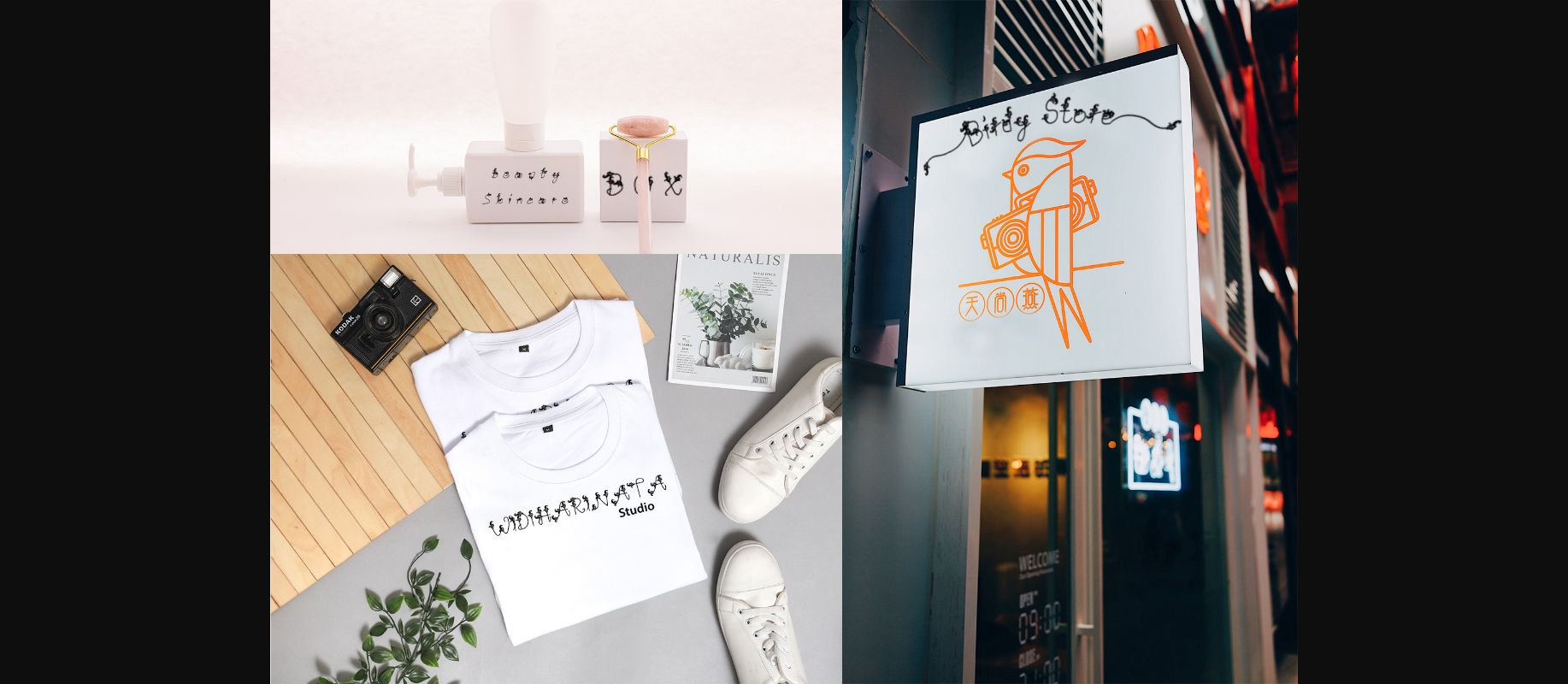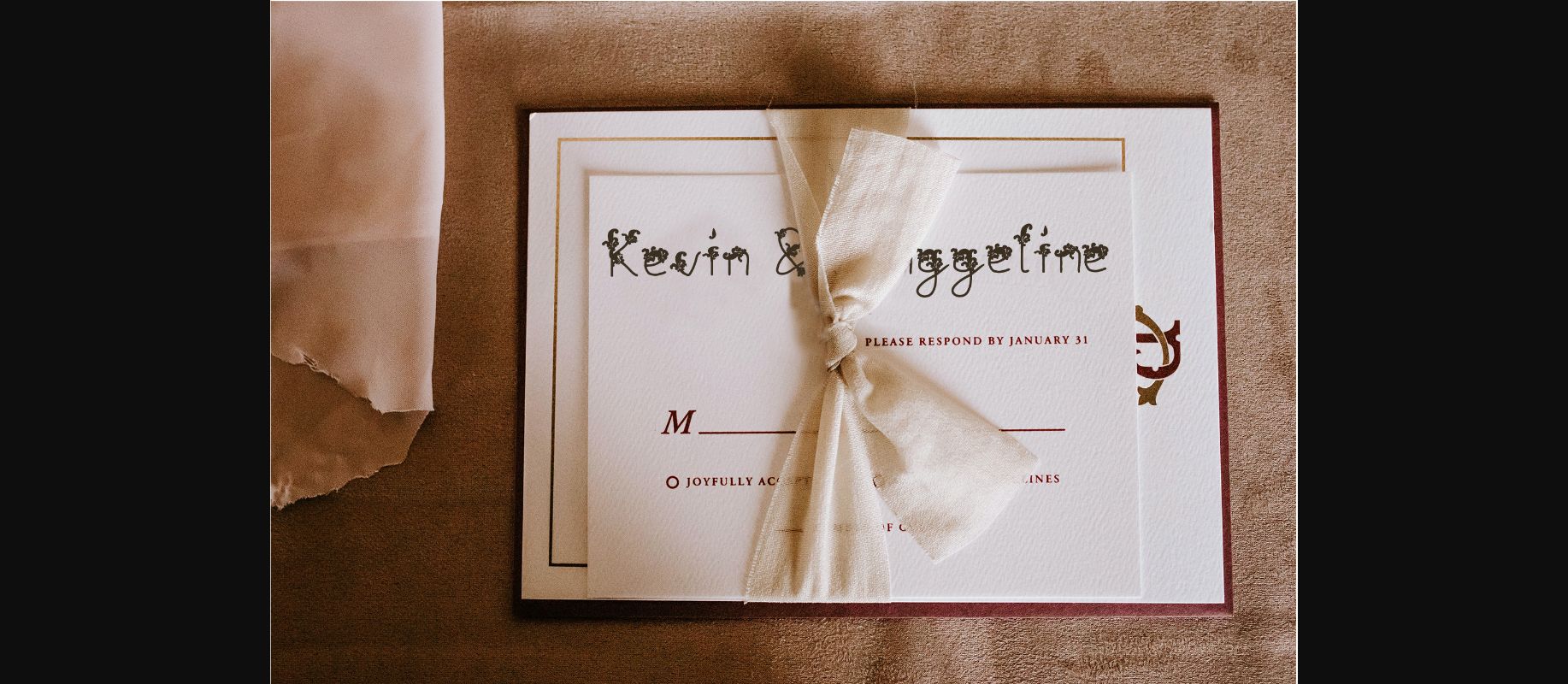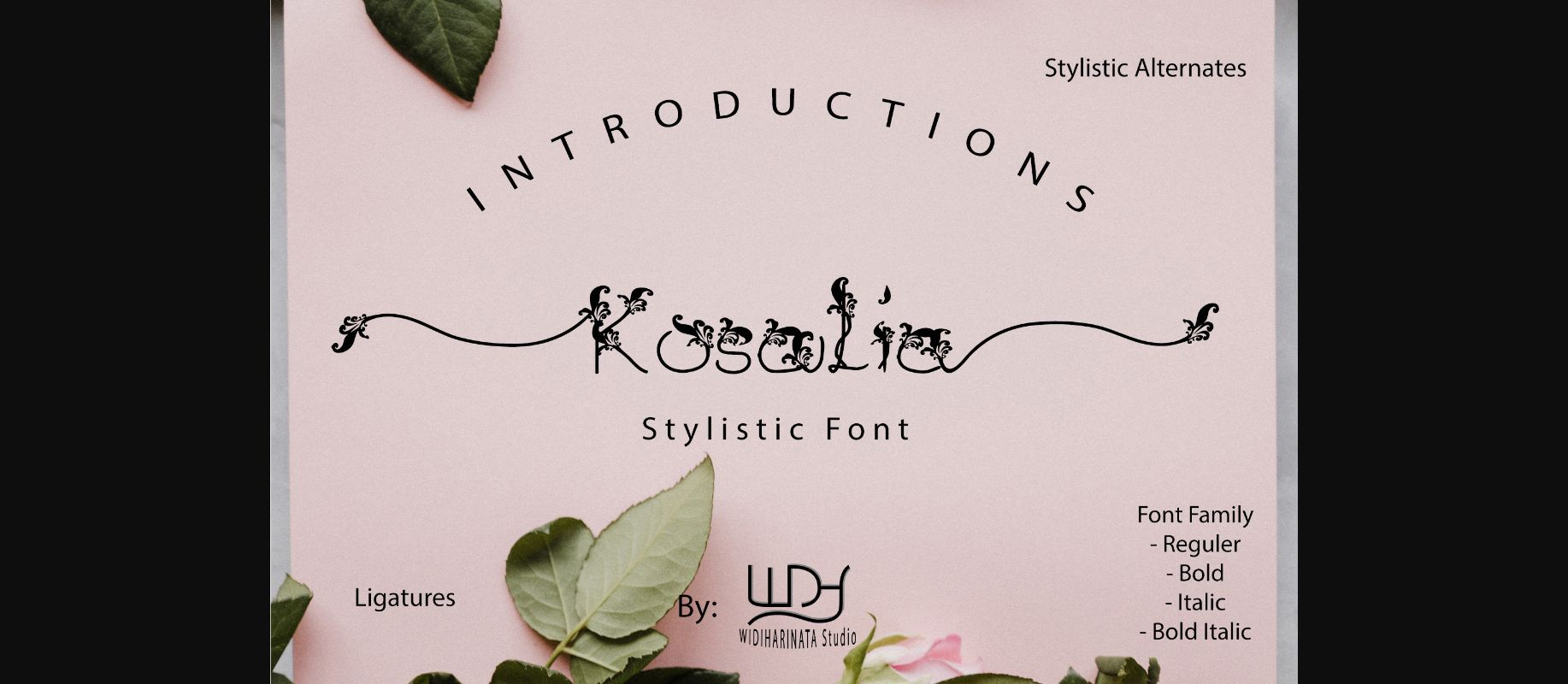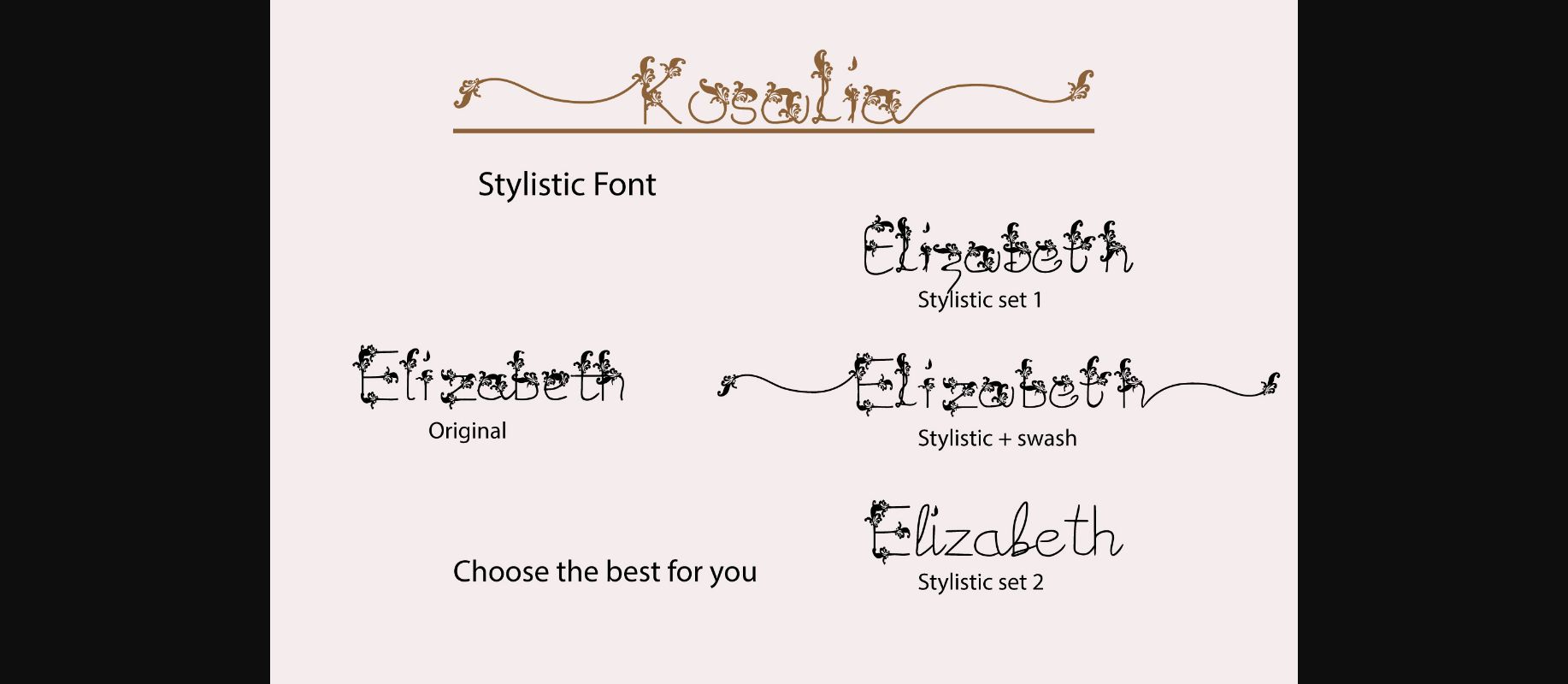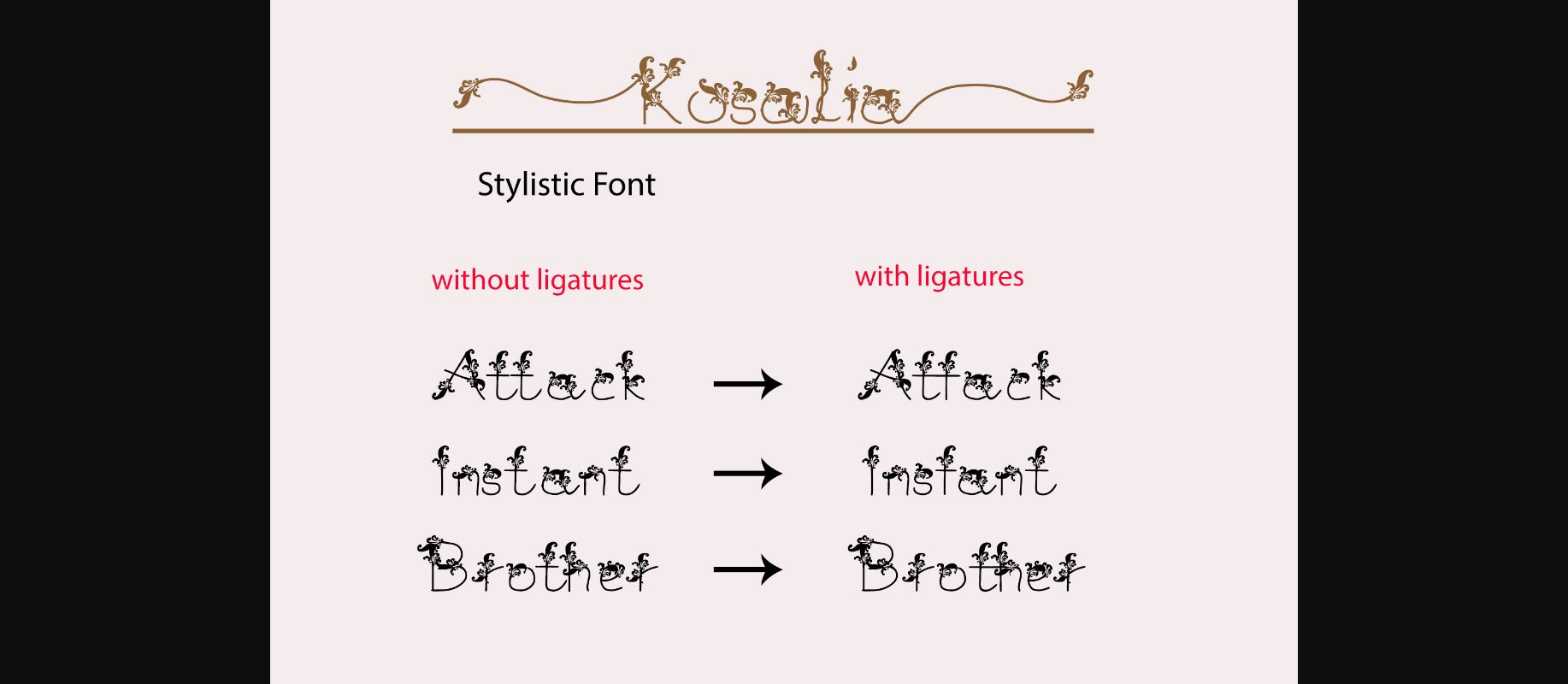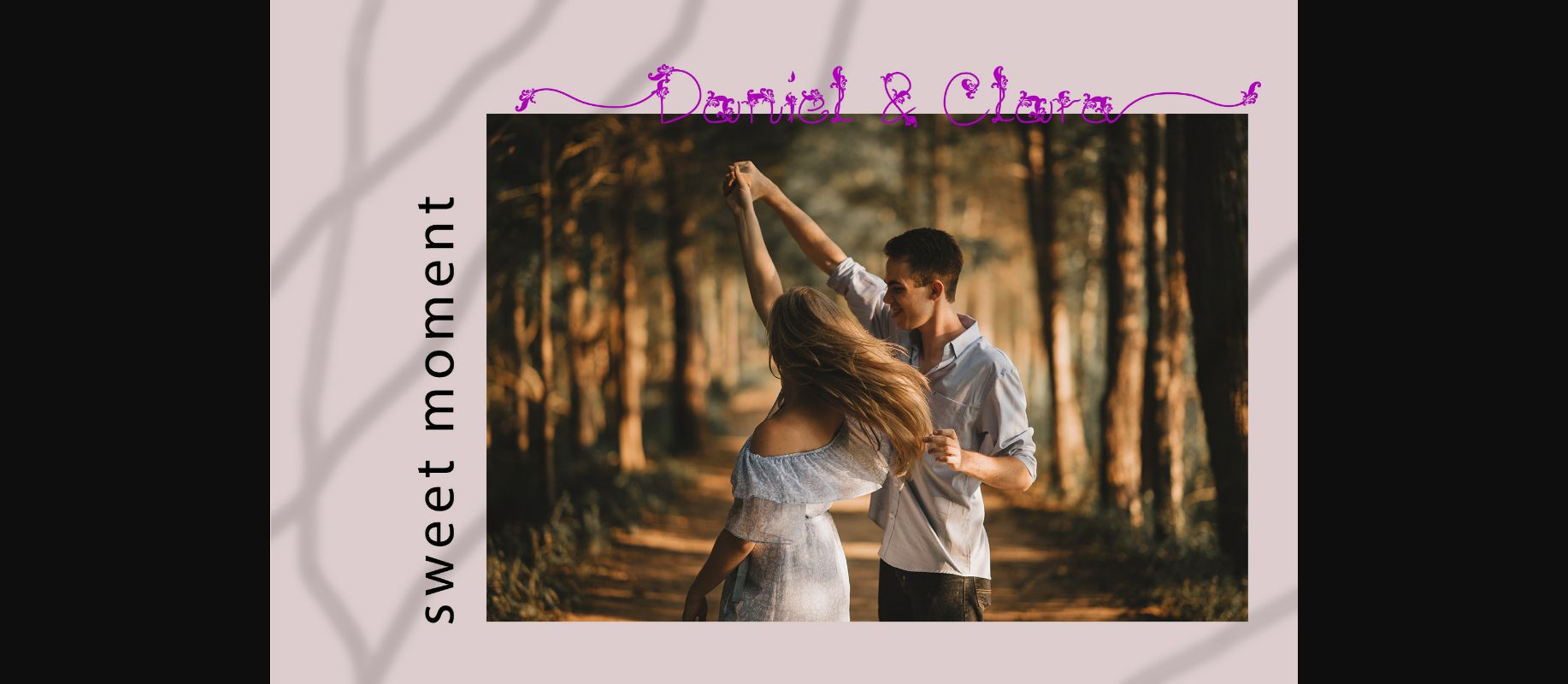
About Kosalia Font
Kosalia is a lovely and delicate decorative font, with elements that exude elegance and class. This font was particularly crafted for those who need a beautiful and refreshing look to their designs.